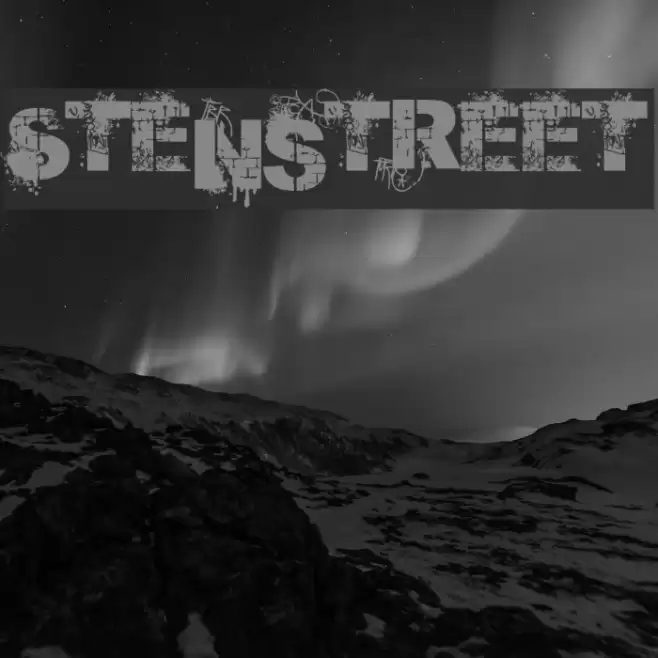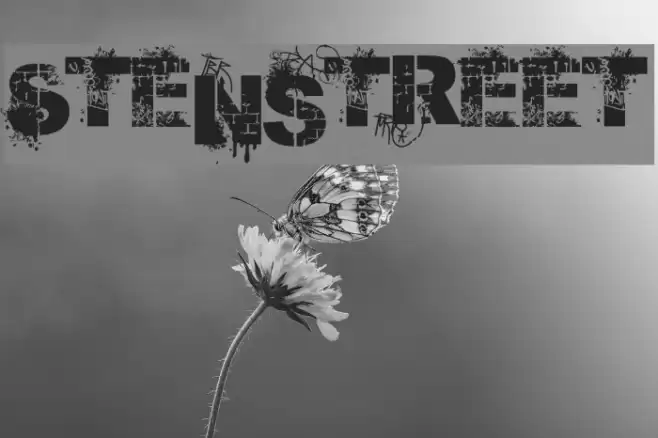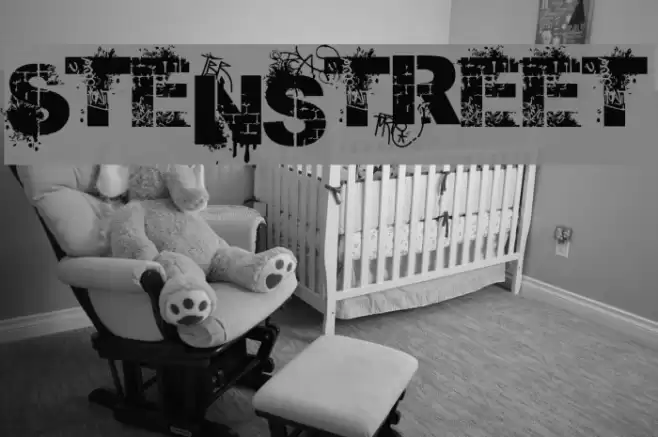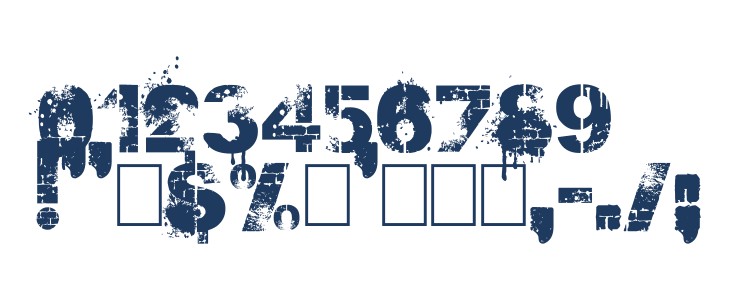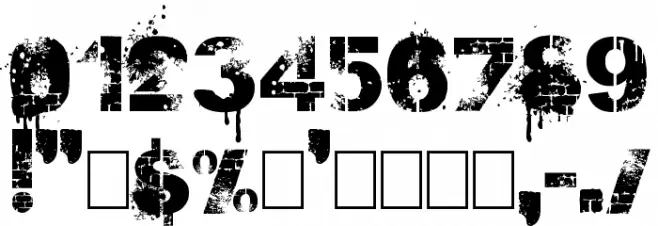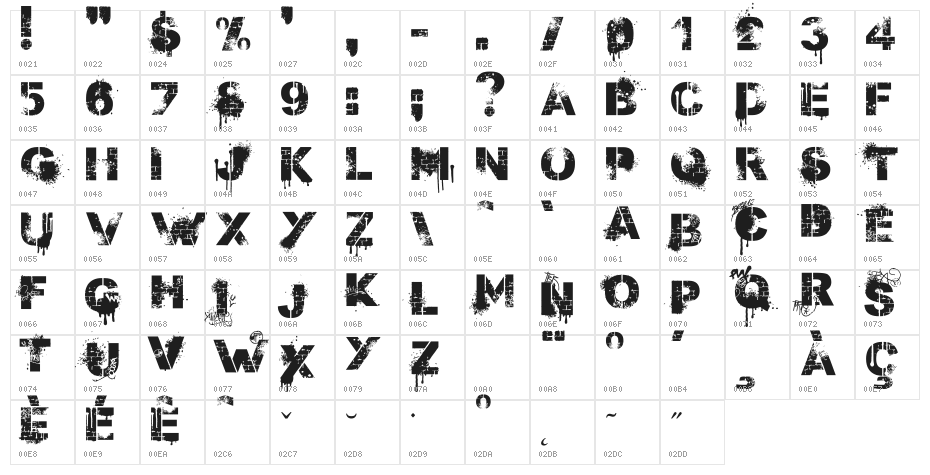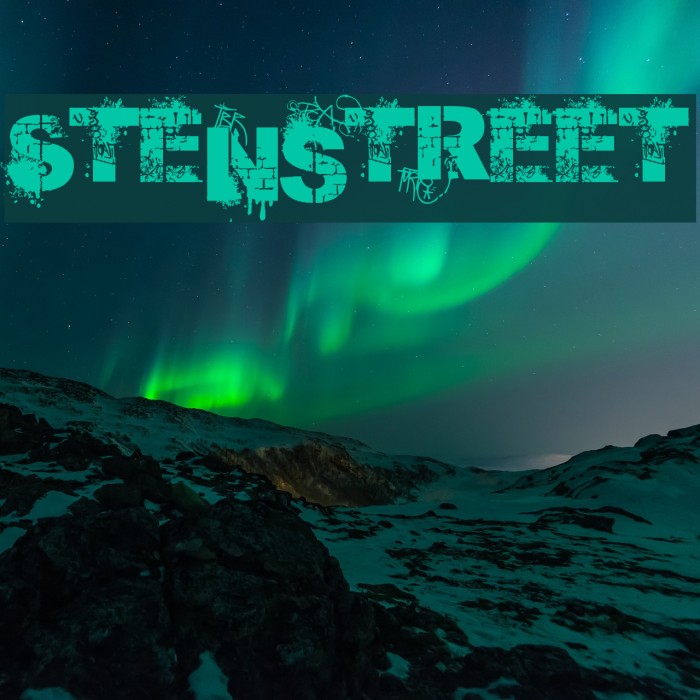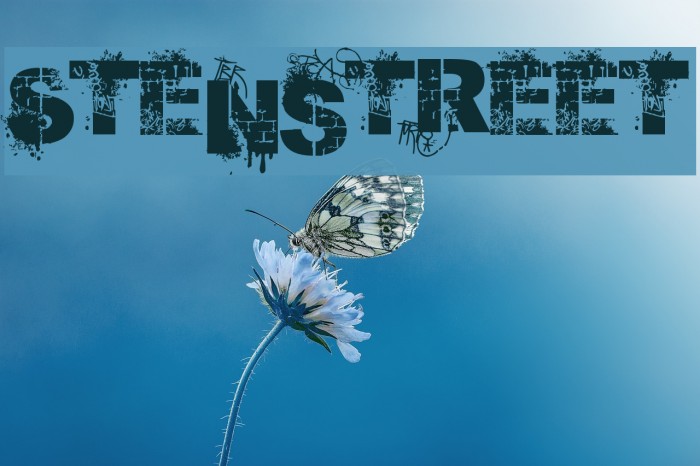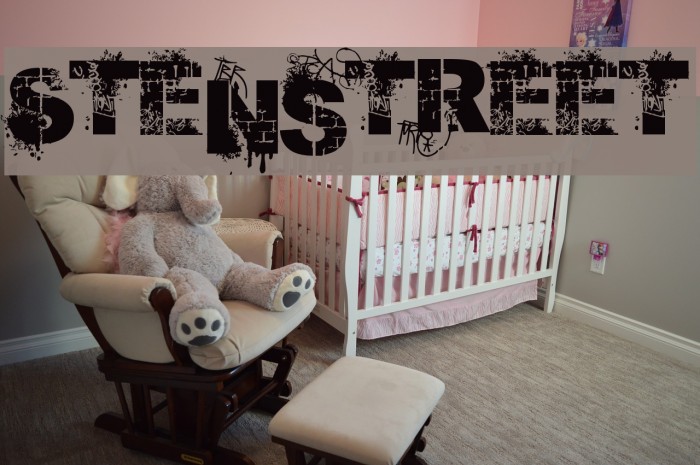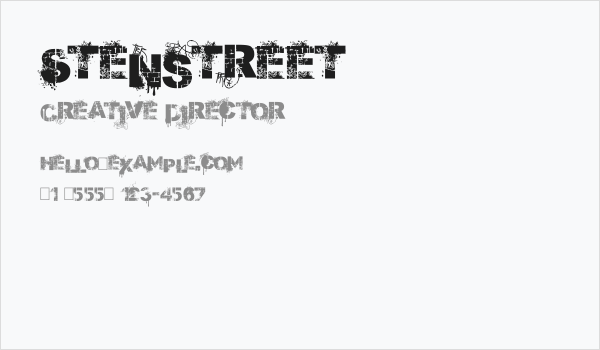
Stenstreet Font
Stenstreet Description
This font features a bold, distressed style with a graffiti-like appearance. The characters are heavily textured, resembling paint splatters and drips, giving it an urban, edgy feel. The uppercase and lowercase letters maintain a consistent design, with each character appearing as if it has been spray-painted onto a surface. The numerals and special characters follow the same aesthetic, ensuring a cohesive look across all elements. This font's unique style makes it stand out, perfect for projects that require a strong, rebellious visual impact.
A bold, distressed graffiti-style font with textured, paint-splattered characters from Uncategorized fonts.
- Proposed Projects: Ideal for street art-inspired designs, music album covers, urban-themed posters, and edgy branding projects.
- Overall Style: Urban, Edgy, Graffiti
- Use Case: Headlines, Posters, Branding